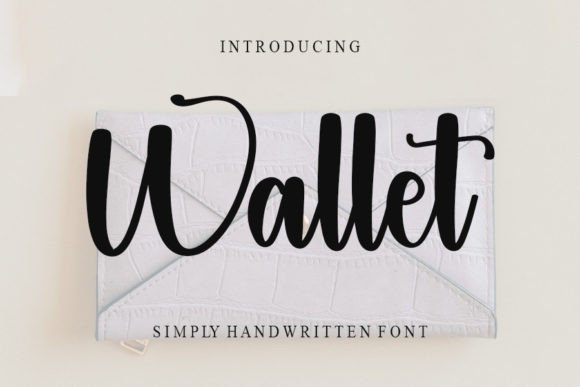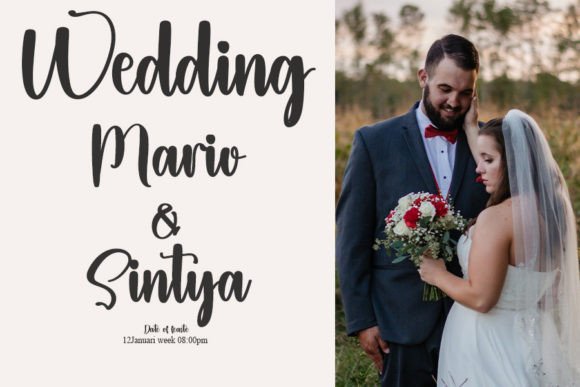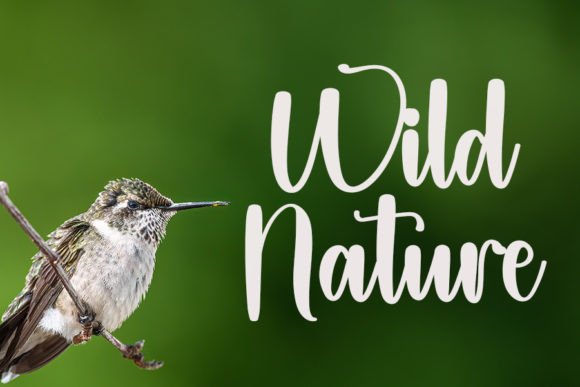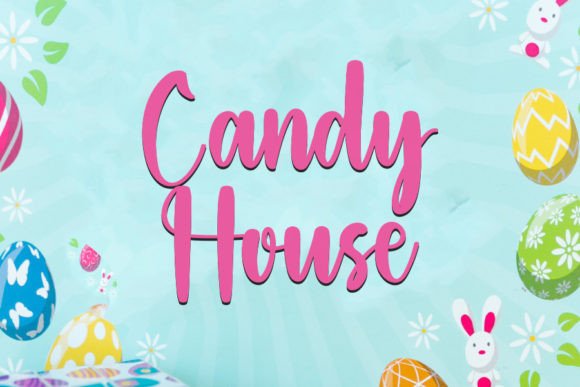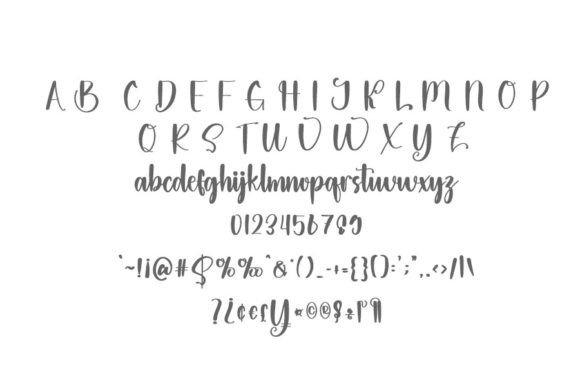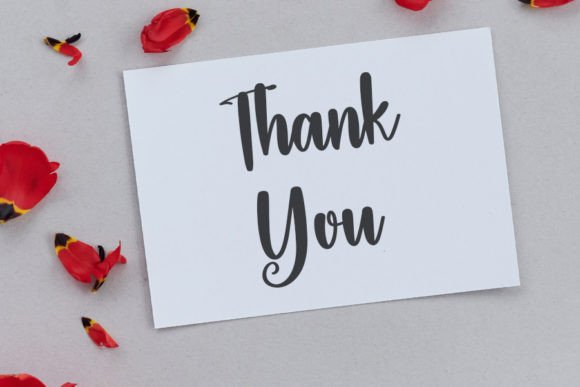
Wallet Font
About Wallet Font
Walletfont is a casual and relaxed script typeface that offers a warm and inviting style for your creative projects. Its smooth, flowing design makes it highly versatile, fitting a wide range of uses. Whether you’re crafting wedding invitations, creating beautiful stationery, or designing captivating social media content, Walletfont adds a charming and elegant touch to your work.
Ideal for Wedding Invitations and Stationery
This font truly shines in wedding invitations and stationery designs. Wallet font’s graceful strokes create a personal, heartfelt impression, making each invitation feel unique and special. It perfectly captures the intimate and joyful spirit of weddings, bridal showers, and other elegant events.
Elevate Your Social Media Presence
Using Walletfont on your social media posts can help you create engaging and stylish visuals. Its friendly curves and clear readability make your messages stand out on platforms like Instagram, Facebook, and Pinterest. It brings an approachable yet sophisticated vibe to your branding and content.
Perfect for Various Creative Projects
Beyond weddings and social media, Walletfont is also great for branding, quotes, packaging, posters, and much more. Its casual yet elegant style lends a handcrafted feel to your designs, making them more relatable and visually appealing.
Why Choose Wallet Font?
If you want a script font that balances casual charm with timeless elegance, Walletfont is a fantastic choice. It brings warmth and personality to your designs, ensuring your projects resonate with authenticity and style.